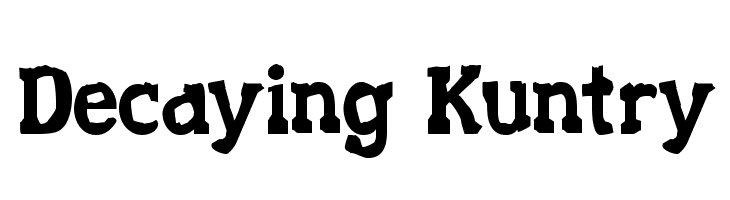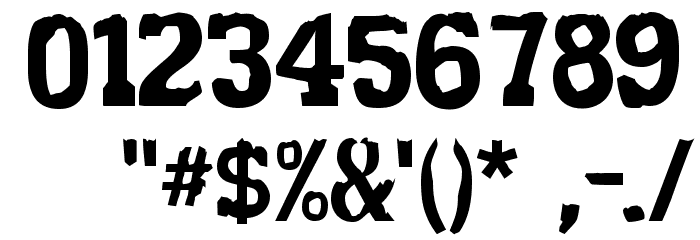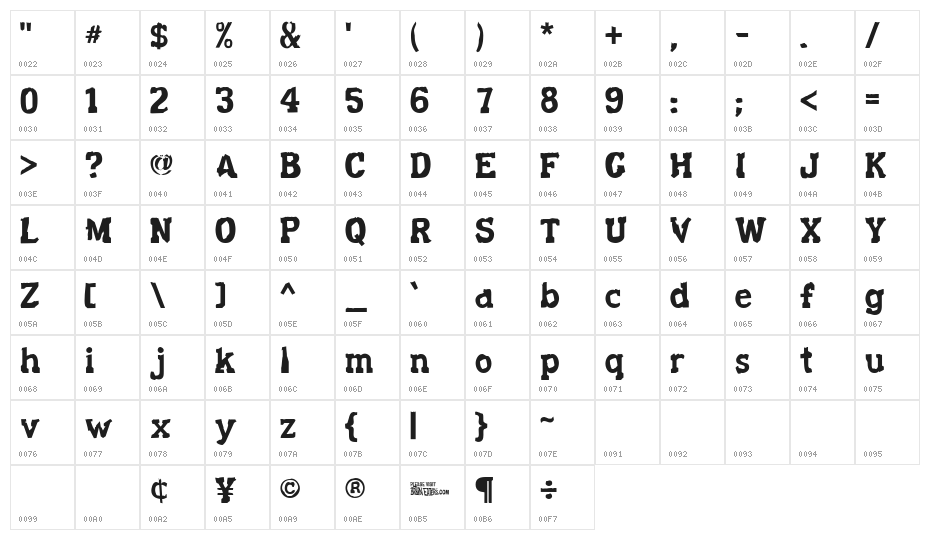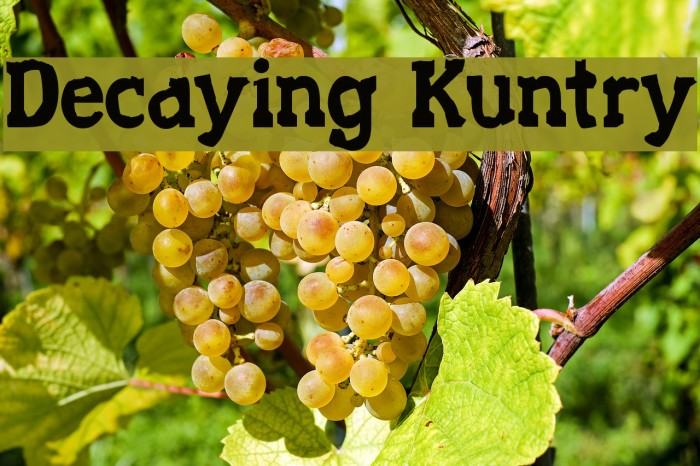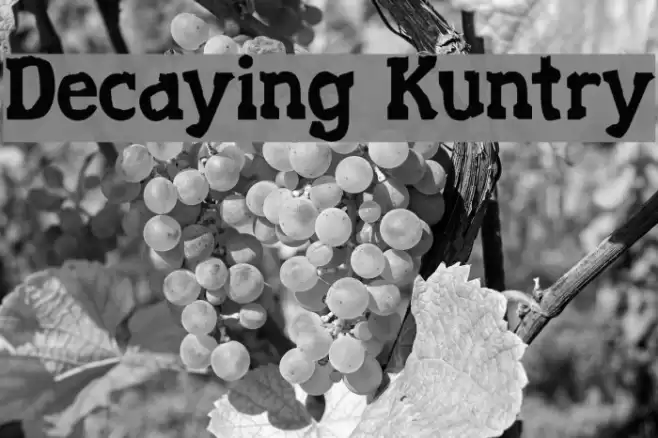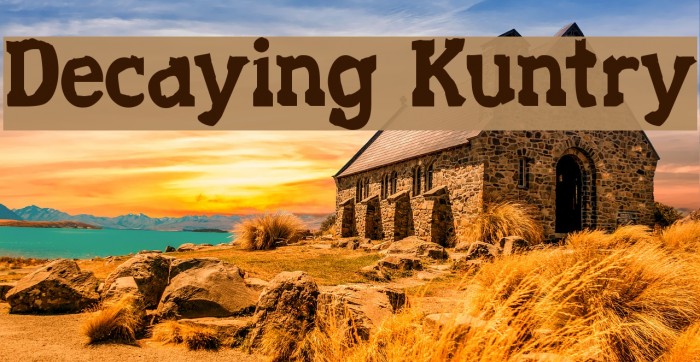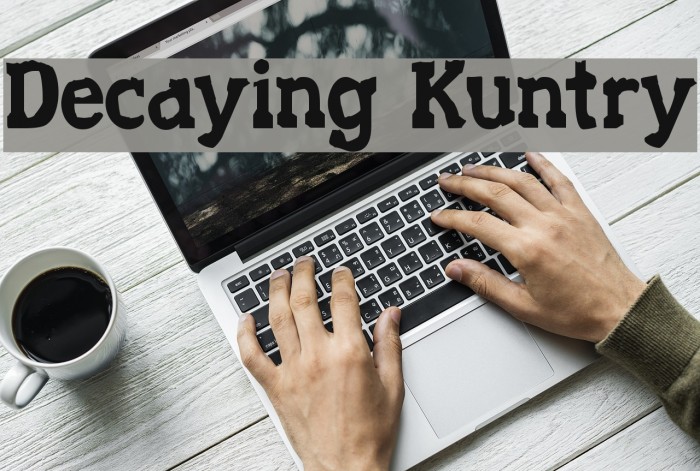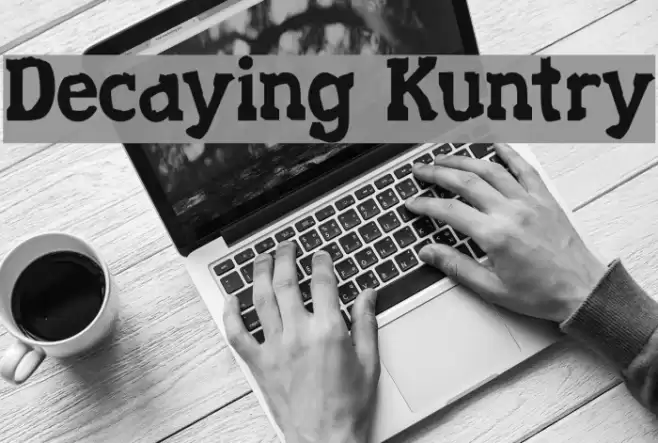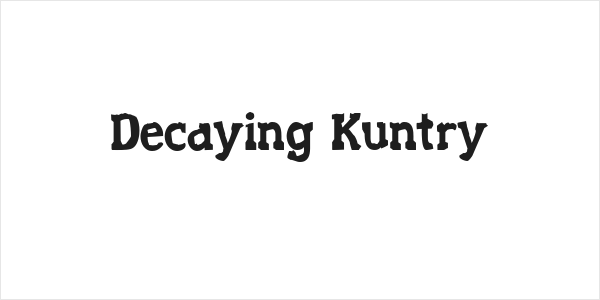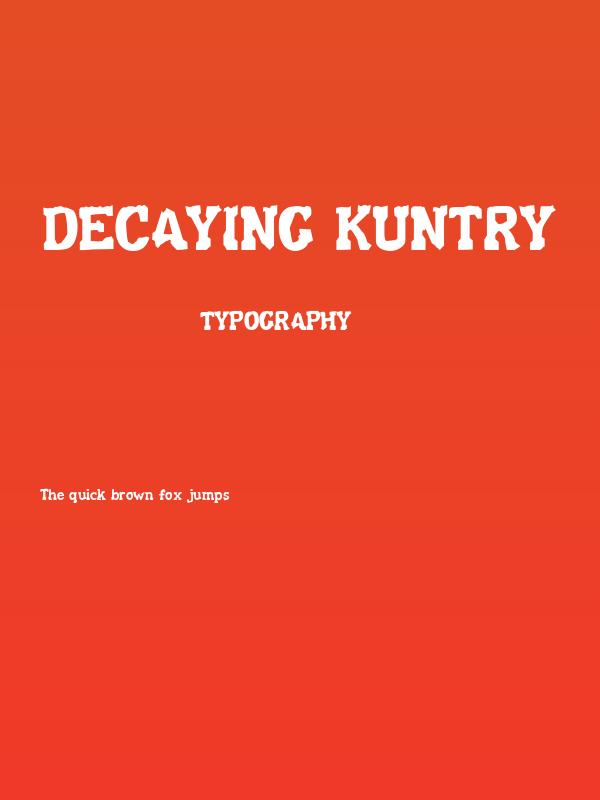
Decaying Kuntry Font
Decaying Kuntry Description
This font exudes a rugged, distressed aesthetic, reminiscent of weathered wood or aged metal. Its bold, uneven strokes and irregular edges give it a rustic, hand-crafted feel. The uppercase and lowercase letters maintain a consistent style, with a slightly condensed form that enhances its bold appearance. Numbers and special characters follow the same distressed theme, making them ideal for projects that require a touch of vintage or country charm. The font's unique character is perfect for designs that aim to evoke a sense of nostalgia or authenticity, such as branding for artisanal products or themed events.
| Proposed Projects | Ideal for vintage-themed branding, rustic signage, artisanal product packaging, and event invitations. |